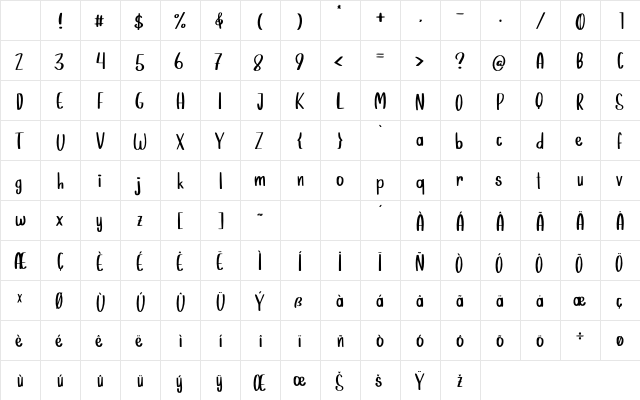
Complete Giraffella Regular glyph index. Displaying only characters natively supported by Giraffella Regular font.
Giraffella is a composed and adaptable typeface that performs quietly and consistently across a wide range of design contexts.